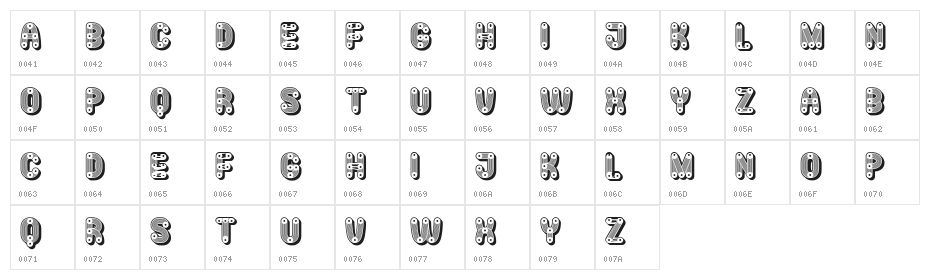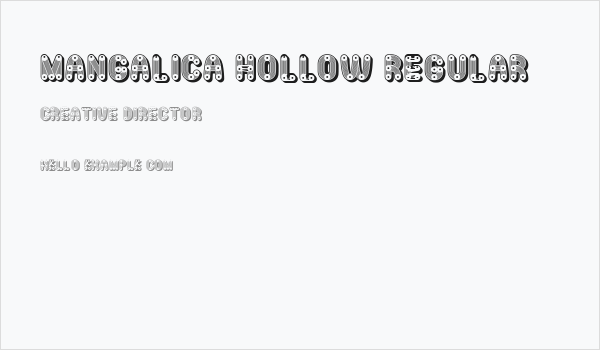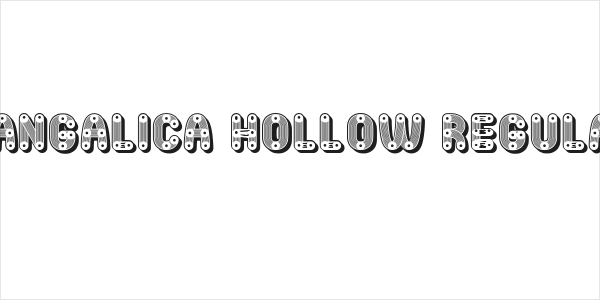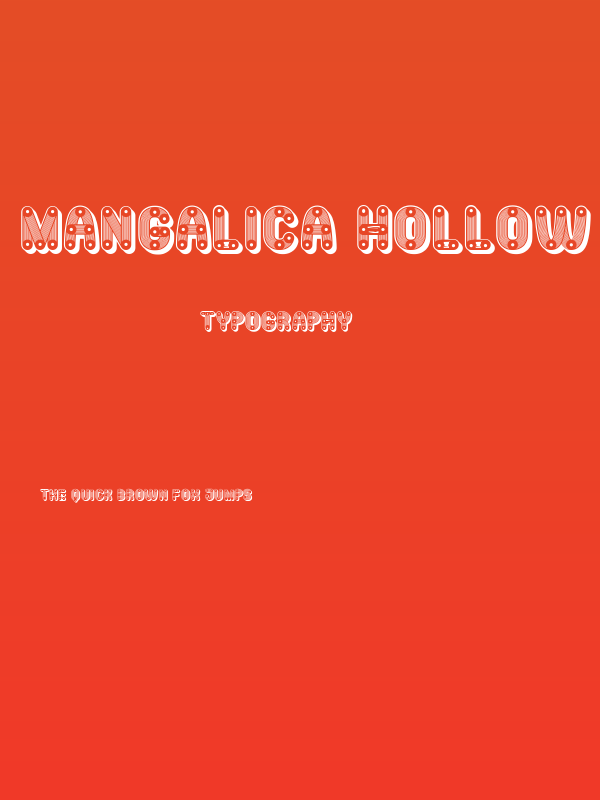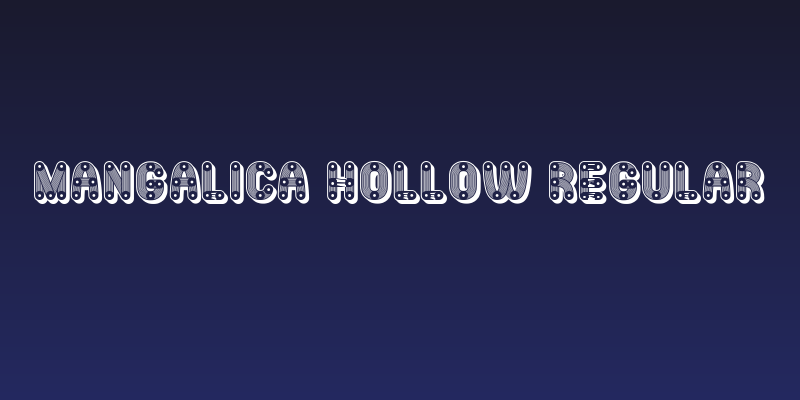
Mangalica Hollow Regular Font
Mangalica Hollow Regular Description
This font features a playful and bold design with hollow interiors and a three-dimensional effect. Each character is outlined with a thick black border, and the interior is decorated with intricate patterns, including dots and lines, giving it a mechanical and industrial feel. The letters are uppercase and have a uniform width, contributing to a cohesive appearance. The style is eye-catching and suitable for creative projects that require a distinctive and decorative typeface.
Proposed ProjectsIdeal for posters, logos, and creative branding projects that require a unique and bold statement.